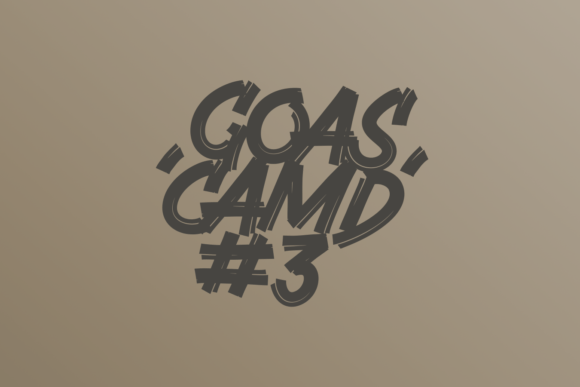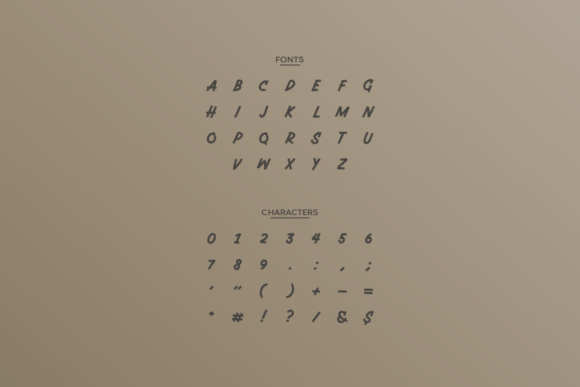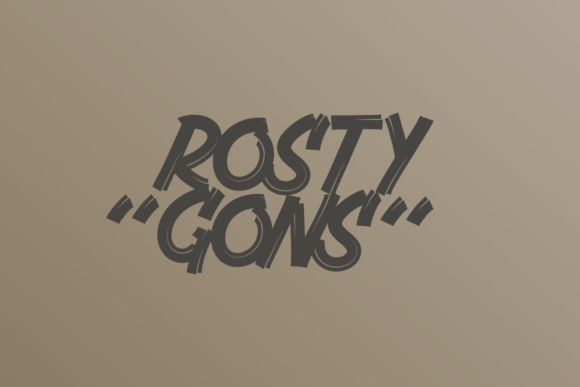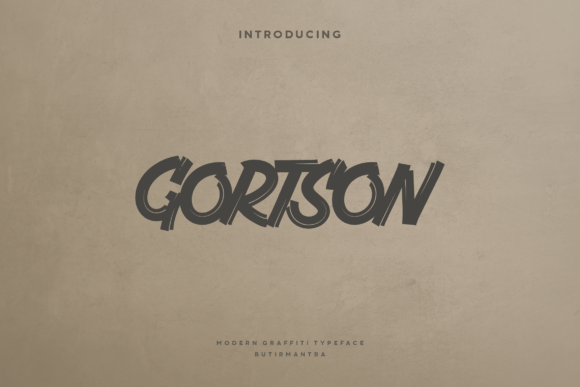
Gortson Font: Unleash Your Creativity with this Urban-Style Handwritten Font
Are you a designer, crafter, or artist looking for a unique and creative way to express yourself? Look no further than the Gortson Font, an urban-style handwritten font inspired by the vibrant world of graffiti art. With its masterful design and authentic feel, this font is sure to become a true favorite among creatives, bringing each of your ideas to the highest level.
The Inspiration Behind Gortson Font
Gortson Font draws its inspiration from the raw, edgy, and expressive world of graffiti art. Graffiti has long been a staple of urban culture, providing a platform for artists to express themselves freely and creatively. The Gortson Font captures the essence of this art form, distilling its energy and spontaneity into a digital font that can be used in a wide range of creative projects.
What Makes Gortson Font So Special?
So, what sets the Gortson Font apart from other fonts on the market? Here are just a few reasons why this font is a cut above the rest:
• Urban-style authenticity: The Gortson Font is deeply rooted in the urban art scene, giving it a genuine and authentic feel that’s hard to replicate with other fonts.
• Handwritten charm: With its handwritten style, the Gortson Font adds a touch of personality and warmth to any design or project.
• Versatility: Whether you’re working on a logo, poster, or social media graphic, the Gortson Font is versatile enough to adapt to any creative project.
• High-quality design: The Gortson Font has been masterfully designed to ensure that it looks great in any context, from large headlines to small body text.
How to Use Gortson Font in Your Creative Projects
So, how can you start using the Gortson Font in your own creative projects? Here are a few ideas to get you started:
• Branding and logos: Use the Gortson Font to create a bold and eye-catching logo that reflects your brand’s personality and style.
• Posters and flyers: Add a touch of urban flair to your posters and flyers with the Gortson Font, perfect for promoting events, products, or services.
• Social media graphics: Use the Gortson Font to create engaging and shareable social media graphics that stand out from the crowd.
• Packaging and labels: Add a personal touch to your packaging and labels with the Gortson Font, perfect for products that want to stand out on store shelves.
Tips and Tricks for Getting the Most Out of Gortson Font
Here are a few tips and tricks to help you get the most out of the Gortson Font:
• Experiment with different colors: The Gortson Font looks great in a wide range of colors, so don’t be afraid to experiment and find the perfect hue for your project.
• Play with font sizes: The Gortson Font is designed to look great at any size, so feel free to experiment with different font sizes to create visual interest.
• Combine with other fonts: The Gortson Font pairs well with a wide range of other fonts, so don’t be afraid to combine it with other fonts to create a unique look.
In conclusion, the Gortson Font is a unique and creative font that’s perfect for designers, crafters, and artists looking to add a touch of urban flair to their projects. With its authentic feel, handwritten charm, and versatility, this font is sure to become a true favorite among creatives. So why wait? Download the Gortson Font today and start unleashing your creativity!